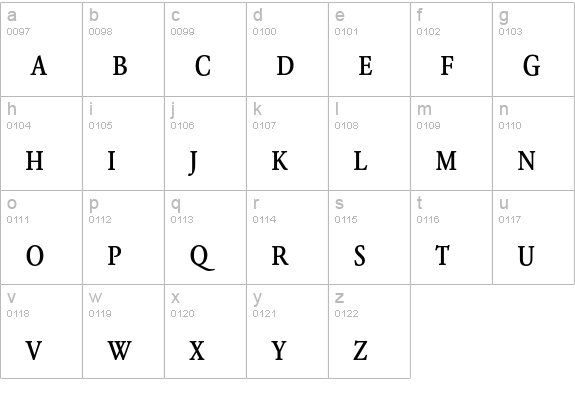
Garamond BE Condensed Expert Font Details
Garamond BE Condensed Expert is a distinctive, condensed-width variant in the Garamond typeface family \xE2\x80\x94 well suited to design and typography projects.
Garamond BE Condensed Expert font is a timeless and elegant typeface that exudes sophistication and professionalism. Its slender and refined letterforms make it perfect for a wide range of design projects, from corporate branding to editorial layouts. This font is not only visually stunning but also highly functional. With its condensed proportions, Garamond BE Condensed Expert allows for more text to be displayed in a limited space without compromising legibility. Its expertly crafted glyphs and balanced letter spacing ensure a seamless reading experience, even at small sizes. One of the most appealing aspects of Garamond BE Condensed Expert font is that it is freely available to download at FontsMarket.com. This means that designers and creatives can access this exceptional font without any cost, making it an excellent choice for those who are working on a budget or simply appreciate the value of a free resource. Whether you are designing a sleek corporate brochure, a stylish magazine layout, or a professional website, Garamond BE Condensed Expert font will elevate your project to new heights. Its classic and refined aesthetic will add a touch of sophistication to any design, making it the perfect choice for those who strive for excellence in their work. Don't miss the opportunity to enhance your typographic arsenal with Garamond BE Condensed Expert font. Download it for free at FontsMarket.com and unlock a world of possibilities for your design projects.